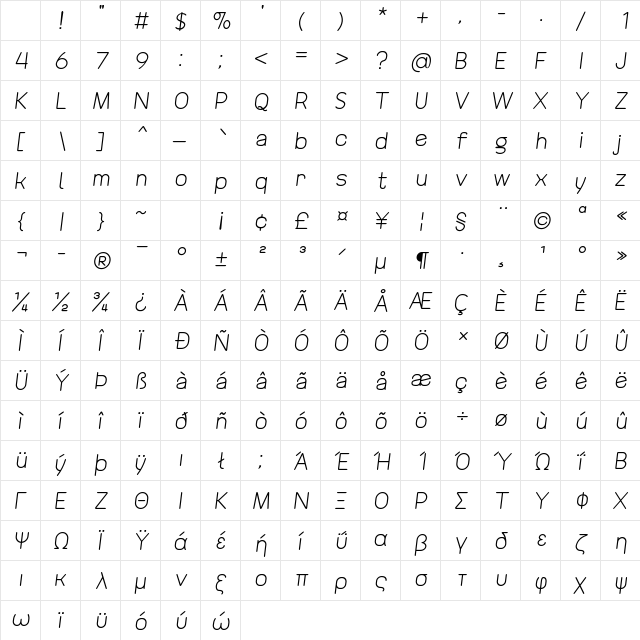
Revofit by Drakoheart Diagonal
Designer: Yun Gonz?lez
Design Context for Revofit by Drakoheart
Revofit by Drakoheart is a composed and adaptable typeface that performs quietly and consistently across a wide range of design contexts.